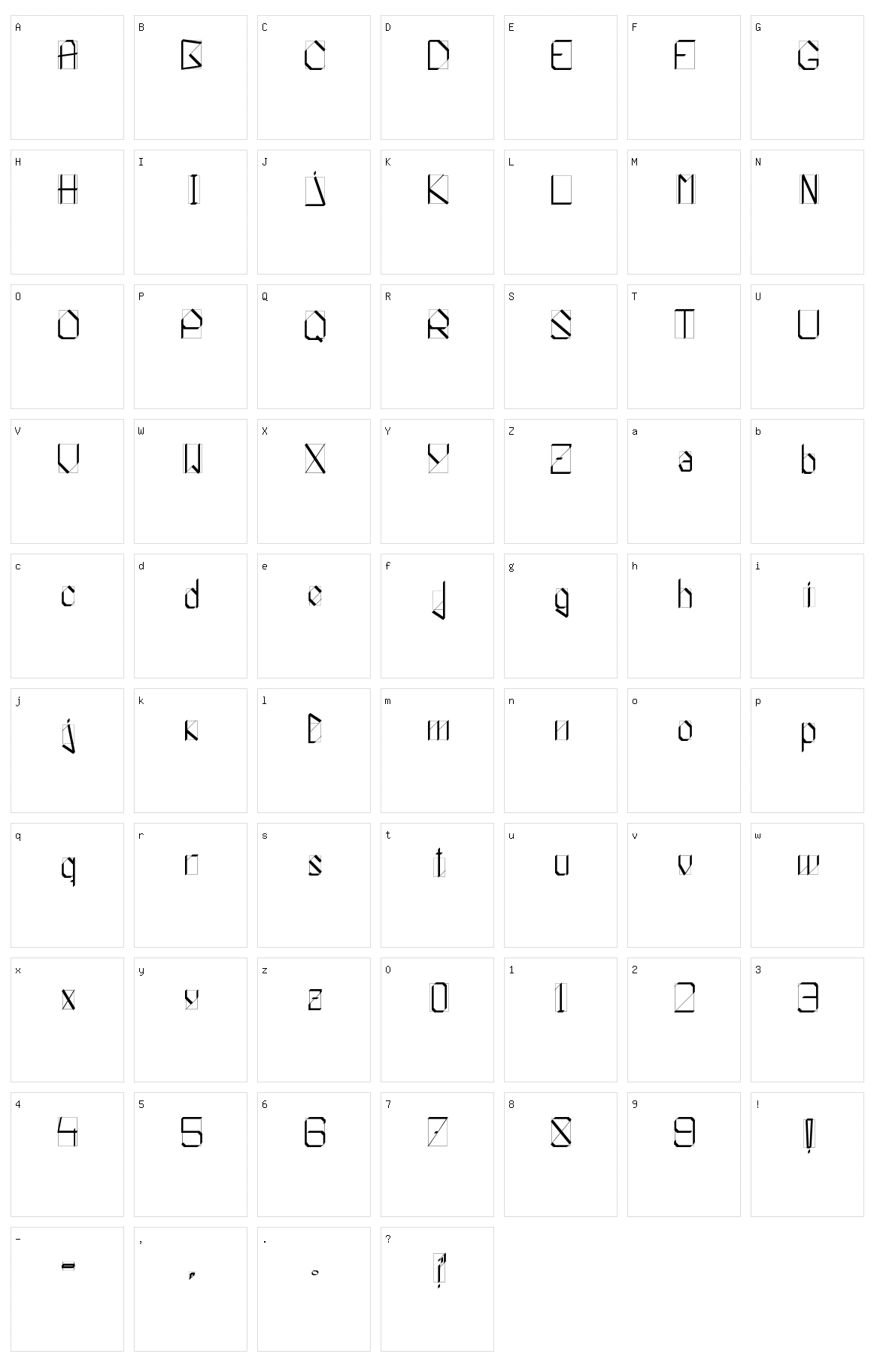
The free font White Knight is carefully designed by Eric Amate, showcasing a thoughtful balance of creativity and usability and belongs to the Gothic font family. When you download the ZIP file, it contains only 12.14 KB of font files, making it lightweight and quick to download. Please review the license details below to understand permitted usage and distribution rights. If license information is not available, we recommend using this font for personal projects only or contacting the author directly for commercial usage permissions.